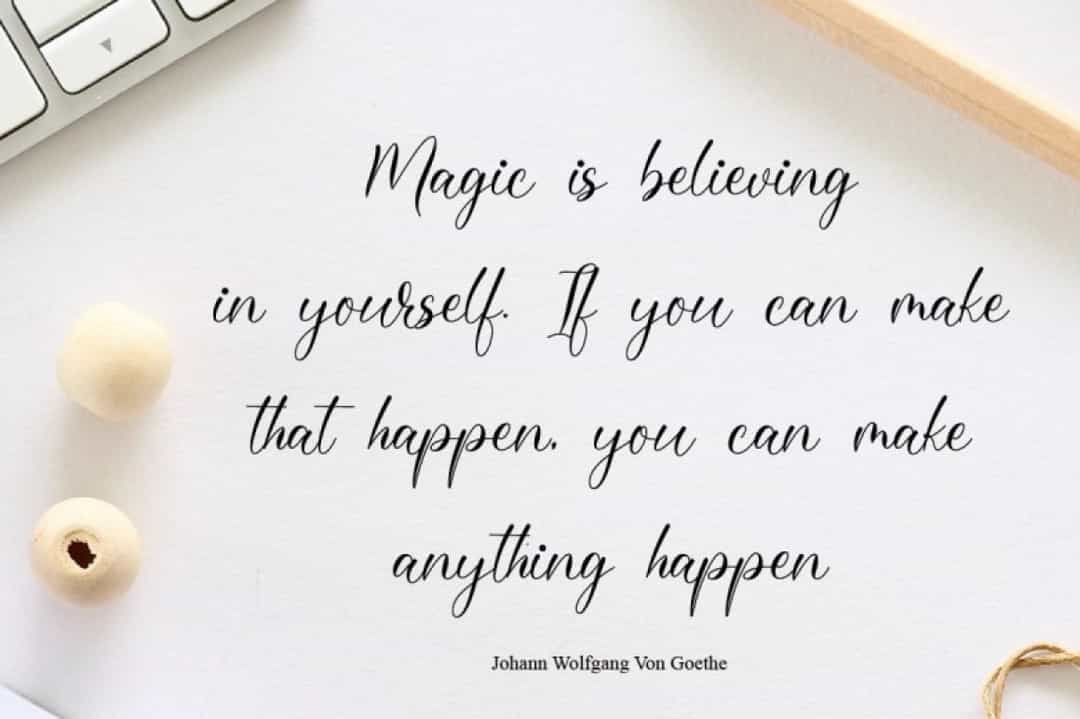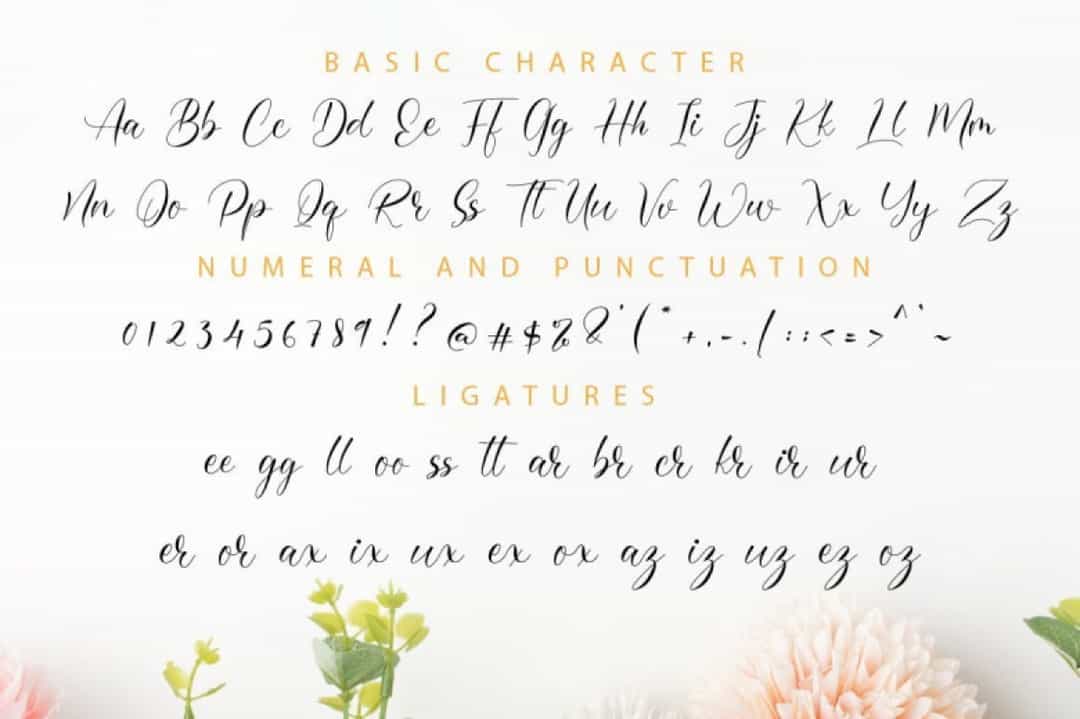
Discover Omerlian Font, part of the Calligraphy collection—a versatile and unique font perfect for adding a personal touch to your projects. Download it for free and enjoy crafting designs with style, from invitations to social media posts. This font is available exclusively for personal use, giving you the freedom to create without limits. Unlock your creativity with Omerlian Font today!
Omerlian is an elegant and captivating calligraphy font with well balanced characters that makes for an easy transition between styles. Use Omerlian in your most imaginative ideas and witness them come to life!